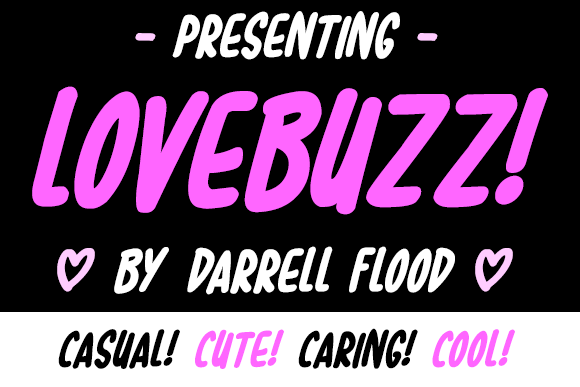
Lovebuzz Font
About Lovebuzz Font
Lovebuzz is a casual, hand-drawn font in a felt-tip marker style. Perfect for adding a touch of loose lightheartedness to your project!